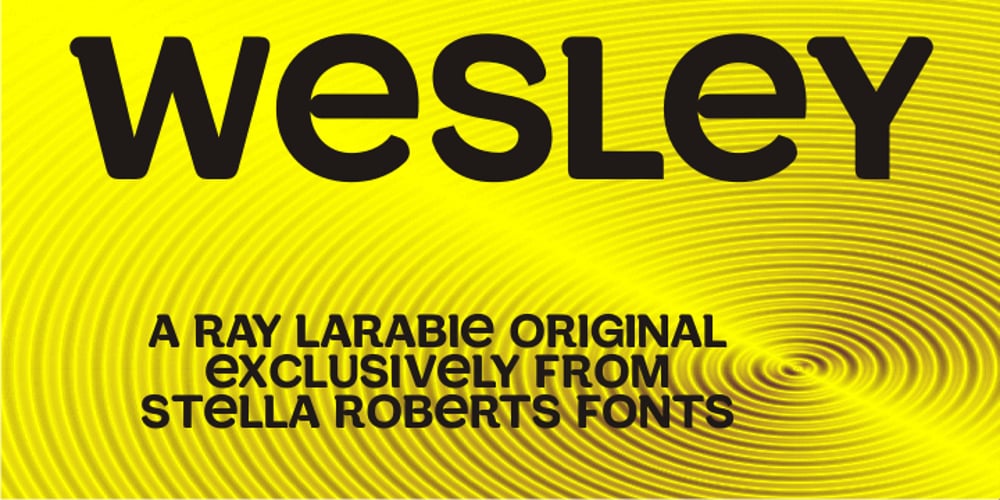
Wesley SRF Font Family was designed by published by Stella Roberts Fonts. Wesley SRF contains 1 styles and family package options. Wesley SRF is another of the Ray Larabie originals provided to Stella Roberts Fonts. This stylized sanserif has a clean look for both text and display puposes. The net profits from my font sales help defer medical expenses for my siblings, who both suffer with Cystic Fibrosis and diabetes. Thank you.